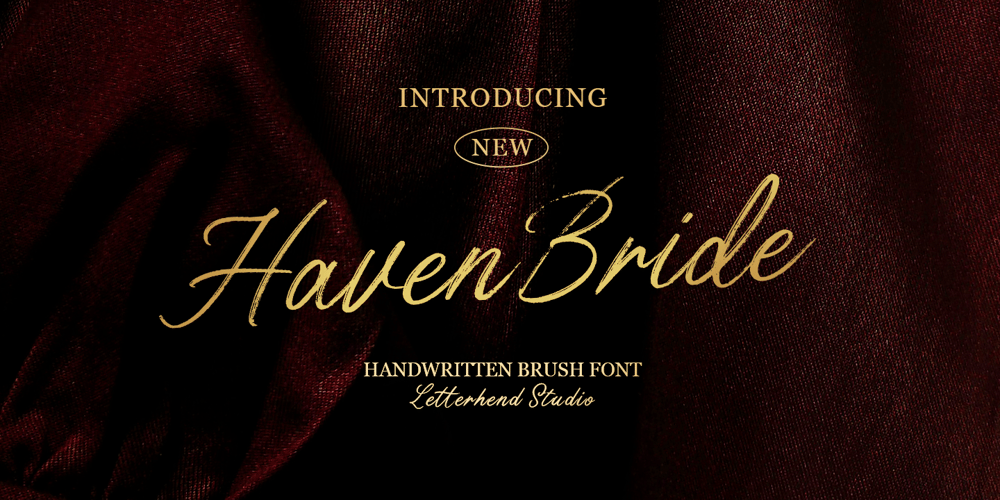
Havin Bride Font Family was designed by Hendry Juanda and published by Letterhend. Havin Bride contains 1 styles and family package options. Haven Bride is the beautiful brush script font that perfectly captures the casual of a handwritten. With its natural feel and casual, chic style, it’s the perfect choice for branding, logos, and the other various formal forms such as invitations, labels, logos, magazines, books, greeting / wedding cards, packaging, fashion, make up, stationery, novels, labels or any type of advertising purpose where a personal touch is needed.Features : Uppercase & lowercase Numbers and punctuation Alternates & Ligatures Multilingual PUA encoded